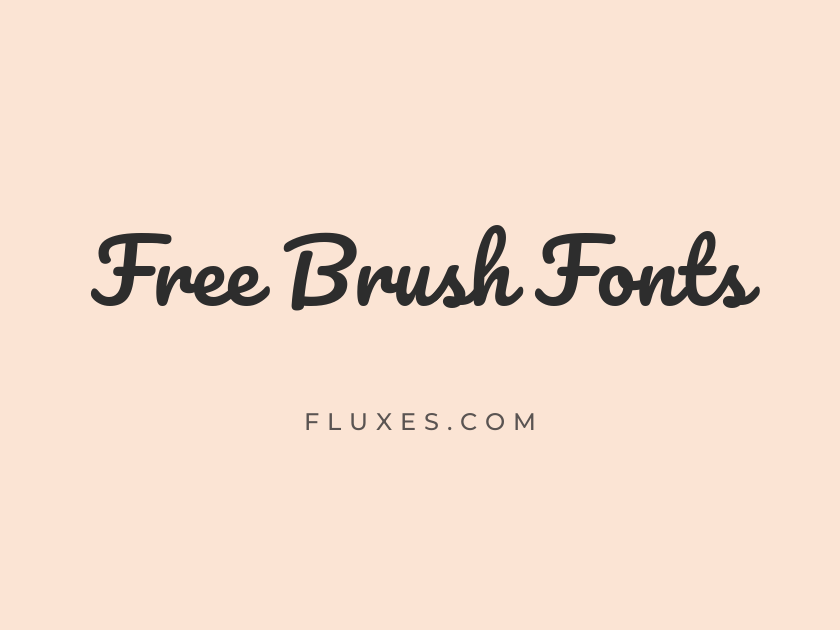
73 Best Free Brush Fonts
Brush fonts bring the energy of real ink, marker, and bristle to digital design, and Google Fonts has become one of the richest sources for genuinely free brush lettering, casual script, and hand-painted display type. Whether you need something loose and gestural for a coffee shop logo, a polished calligraphic brush script for wedding stationery, or an authentic East Asian brush style for a cultural project, there is a huge range of quality options that cost nothing and license cleanly for commercial work. The trick is knowing which ones hold their shape at small sizes, which are built for oversized headlines, and which pair well with a plain sans-serif body text.
What follows is a wide sweep of the best free brush and brush-adjacent script fonts on Google Fonts, chosen for character, legibility, and genuine brush or marker quality rather than generic cursive filler.
1. Pacifico
Fresh paint, bold strokes, hand-lettered charm
Pacifico is the font most people picture when they think “friendly brush script.” Its rounded, bouncy strokes started life as a surfboard shop logo and still carry that laid-back California energy, making it a natural for cafes, ice cream brands, and anything that wants to feel approachable rather than formal.
2. Sacramento
Elegant brush strokes for timeless invitations
Thin, looping, and delicate, Sacramento reads more like a fine-nib brush than a marker, which makes it a favorite for monograms and wedding suites. It gets muddy at very small sizes, so save it for headlines and short phrases.
3. Alex Brush
Signature-style flourish for luxury branding
Alex Brush mimics the confident, unbroken sweep of a signature written with a flat brush pen. It carries genuine luxury signaling, so it turns up constantly on perfume labels, boutique logos, and certificate lettering.
4. Great Vibes
Graceful calligraphy for special occasion design
Great Vibes leans more calligraphic than painterly, but its connected, sweeping letterforms give it real brush-pen energy. It pairs beautifully with a restrained serif like EB Garamond for invitation sets and menu headers.
5. Dancing Script
Playful movement across every headline
Few free scripts have been used as widely as Dancing Script, and the bold weight in particular gives it real brush-like heft. Its exaggerated bounce makes it a dependable choice when you want warmth without the fragility of thinner scripts.
6. Kaushan Script
Confident brush marks with everyday charm
Kaushan Script feels like it was written quickly with a chisel-tip marker, thick and a little rough at the joints in the best way. It holds up well at mid-size headline scale, which is where many brush scripts start to fall apart.
7. Caveat
Casual handwriting with a natural brush feel
Caveat sits closer to handwriting than brush lettering, but its bold weight thickens the strokes enough to read as marker-drawn. It is a workhorse for sticky-note style callouts, packaging accents, and social graphics.
8. Caveat Brush
Thick marker strokes for casual branding
This is the true brush sibling to Caveat, built with a heavier, drier-brush texture that feels genuinely hand-drawn rather than vectorized. It is one of the more authentic marker fonts on Google Fonts and reads well even at smaller display sizes.
9. Satisfy
Relaxed brush script for casual branding
Satisfy is unfussy and legible, a good middle-ground brush script for logos that need personality without theatrics. It works equally well in packaging and in web headers.
10. Courgette
Rounded brush lettering with soft edges
Courgette’s letterforms are thick, rounded, and a little squat, giving it a friendly, almost hand-painted sign quality. It reads clearly at small sizes, which is rarer than it should be among brush fonts.
11. Yellowtail
Retro brush script straight from the diner
There is a distinct 1950s soda-fountain feel to Yellowtail, all swooping tails and mid-century bounce. It suits retro branding, badge logos, and anything leaning into nostalgic Americana.
12. Permanent Marker
Bold marker lettering that grabs attention
Exactly what the name promises: thick, slightly imperfect marker strokes with real texture in the letter joins. It is one of the most-used free marker fonts for a reason, punchy on posters, stickers, and sale signage, though it can feel heavy in long passages.
13. Shadows Into Light
Light handwritten notes with brush warmth
Thinner and more restrained than most entries here, Shadows Into Light reads like a fine felt-tip rather than a full brush. It works nicely for annotations, quotes, and personal-feeling captions.
14. Homemade Apple
Hand-scrawled charm for personal projects
Homemade Apple has an unpolished, ballpoint-and-brush hybrid quality that feels genuinely handwritten rather than designed. It suits diary-style blogs, recipe cards, and packaging that wants an artisanal, homemade feel.
15. Lobster
Bold retro script for standout branding
Lobster is technically closer to a fat retro script than a brush, but its thick, glossy strokes give it real brush-lettering presence at large sizes. It has been overused in some circles, so it rewards a fresh pairing and a specific, deliberate context.
For web use, check that the font renders cleanly on both light and dark backgrounds, since thin brush strokes can disappear against busy imagery.
With this many strong, genuinely free options across playful, elegant, gritty, and authentic East Asian brush styles, there is rarely a reason to pay for a brush font unless a project needs something extremely specific. Download a handful, test them against your actual content, and let the shortlist narrow itself down.